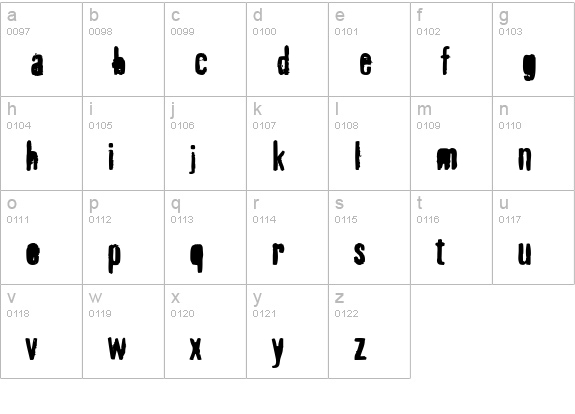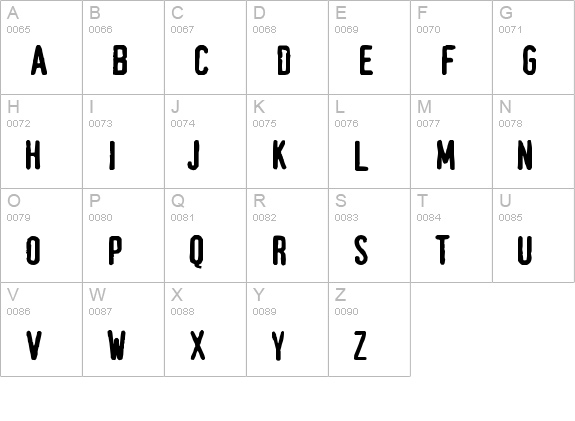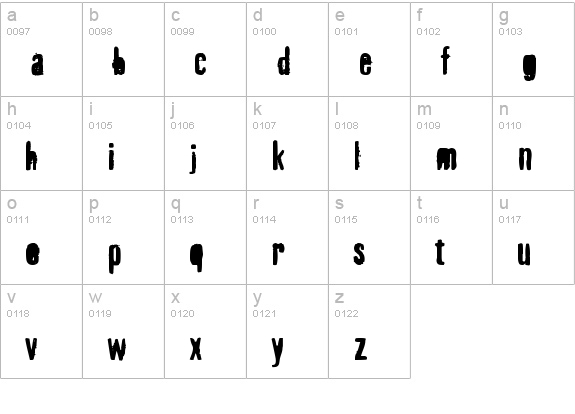
PFFragment Heavy Font Details
PFFragment Heavy is a heavy, high-impact variant in the PFFragment typeface family \xE2\x80\x94 well suited to high-impact headlines, posters, and display advertising.
PFFragment Heavy font is a bold and impactful typeface that exudes strength and modernity. With its sharp edges and sturdy appearance, this font is perfect for creating eye-catching headlines, logos, and branding materials. The PFFragment Heavy font is designed to make a statement and leave a lasting impression on any design project. The best part about PFFragment Heavy font is that it is completely free to download at FontsMarket.com. Whether you are a designer looking to add a bold touch to your work or a business owner in need of a strong visual identity, this font is a versatile and powerful tool that will elevate your designs to the next level. Don't miss out on the opportunity to enhance your projects with the striking PFFragment Heavy font, available for free at FontsMarket.com.